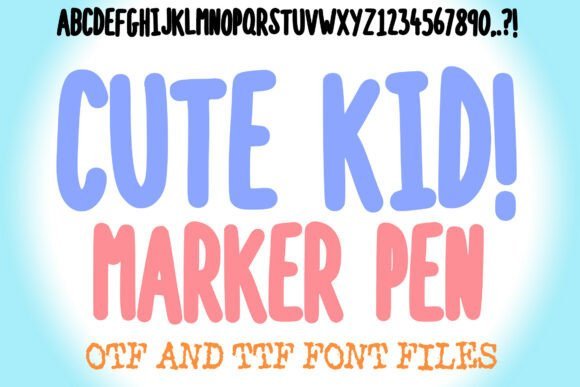
Capturing the Whimsy of Childhood: Cute Kid Marker Pen Font
Have you ever sat down with a box of crayons and a blank sheet of paper, watching as your child’s imagination brings a world of color and wonder to life? That same sense of unbridled creativity is what inspired the development of Cute Kid Marker Pen Font – a delightful typeface that perfectly captures the essence of a child’s hand-drawn lettering.
This charming font is more than just a design element – it’s a way to tap into the innocence and joy of childhood. With its friendly, rounded shapes and natural strokes, Cute Kid Marker Pen Font is the perfect choice for designers looking to add a touch of warmth and playfulness to their projects. Whether you’re working on a children’s book, a nursery decor project, or a brand identity that needs a little extra charm, this font is sure to bring a smile to your face and a sense of wonder to your audience.
• Unique Characteristics: Hand-drawn, marker pen-style font with a playful and childlike feel
Cute Kid Marker Pen Font Review
I recently had the chance to work with the Cute Kid Marker Pen Font, and I must say it’s a delight to use. ✨ The font’s playful and whimsical design makes it perfect for kids’ educational materials, party invitations, and other fun projects. The font is highly customizable, allowing you to adjust the color, size, and style to fit your needs.
The font’s marker pen design gives it a unique and creative look that’s sure to capture attention. It’s also incredibly versatile, working well for both digital and print projects. ✨ I’ve used it for creating fun and engaging lesson plans, and the kids love it!
While the Cute Kid Marker Pen Font is a great addition to any designer’s toolkit, there are a few limitations to be aware of:
• ⚠️ The font may not be suitable for professional or formal projects, as it’s a bit too playful and casual.
• ⚠️ Some users may find the font’s marker pen design a bit too childish or immature, depending on the project’s tone.
Overall, I’m really impressed with the Cute Kid Marker Pen Font. It’s a fun and creative font that’s perfect for kids’ projects or other fun and playful designs. While it may have some limitations, it’s definitely worth adding to your font collection.
Use bold colors and playful combinations to create visually appealing designs. Experiment with different font sizes and styles to add depth and interest. Consider pairing the Cute Kid Marker Pen Font with other playful fonts for a unique look.
The Cute Kid Marker Pen Font is perfect for:
– Children’s party invitations and decorations
– Educational materials and worksheets
– Playful advertisements and marketing materials
– Personalized gift tags and cards
Alternative Marker Fonts for Designers
Great Vibes is a modern, cursive script font that mimics the look of a marker pen. It is ideal for use in titles, headings, and quotes where a playful, handwritten feel is desired. Great Vibes is more elegant and refined compared to Cute Kid Marker Pen Font, making it suitable for a wider range of designs.
Lobster is a fun, cursive font that is reminiscent of a marker pen. It is perfect for use in social media graphics, advertising, and other designs where a bold, eye-catching feel is required. Lobster is more dramatic and attention-grabbing compared to Cute Kid Marker Pen Font, making it ideal for designs that need to stand out.
Carolyna Pro is a modern, marker-inspired font that is highly customizable. It is suitable for use in a variety of designs, from fashion and beauty to food and lifestyle. Carolyna Pro is more versatile and professional compared to Cute Kid Marker Pen Font, making it a great choice for designs that require a touch of sophistication.